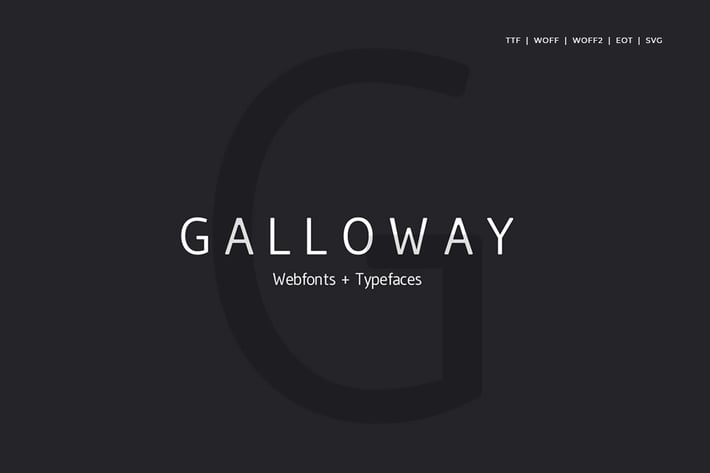
Galloway - Modern Typeface + WebFont
Galloway Modern Typeface
Galloway is a modern and Minimal Sans Serif typeface, Galloway Sans can keep the minimalism at its level best and is a Perfect choice for Creative and Classic Typography Designs.